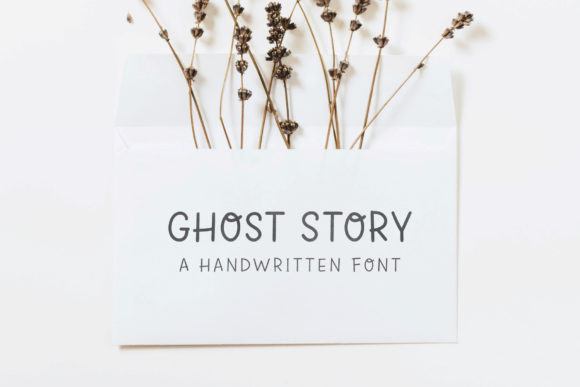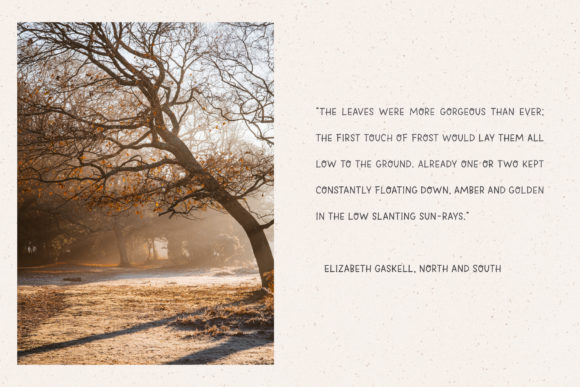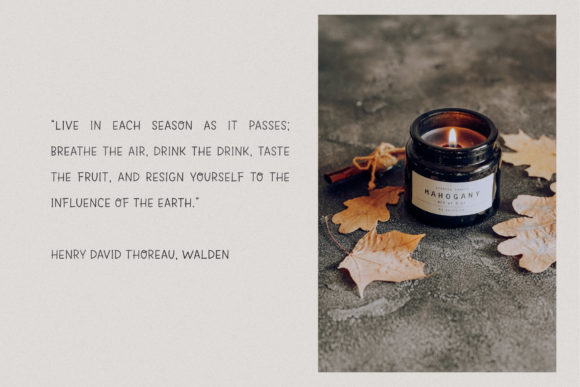
About Ghost Story Font
Ghost Story is a minimalist and elegant handwritten font that exudes a clean, refined, and understated vibe. Its thin and smooth letterforms give it a sense of sophistication and simplicity, making it a versatile choice for a wide range of design projects.
The font’s clean and uncluttered appearance allows it to seamlessly integrate into various design contexts. Whether you’re working on branding materials, editorial layouts, invitations, or any other creative project, Ghost Story’s understated elegance can elevate your design with a touch of modernity and refinement.
The thin and smooth strokes of Ghost Story contribute to its timeless and versatile quality. Its simplicity makes it well-suited for both formal and informal applications, allowing you to convey a sense of professionalism or approachability, depending on the context. The font’s versatility enables you to experiment with different sizes and styles, from delicate and subtle to bold and impactful, all while maintaining its inherent clean and smooth aesthetic.
Ghost Story’s minimalist charm doesn’t overpower the overall design but rather enhances it with a touch of subtlety. This makes it an excellent choice for pairing with other typefaces or design elements, allowing it to play a supporting role in your compositions. Its neutral and adaptable nature ensures that it complements a wide range of visual styles and themes, making it a reliable choice for various design projects.
The font’s clean and thin lines make it particularly suitable for projects that require a modern and contemporary feel. Its straightforward and unadorned style can contribute to a sense of clarity and simplicity, helping your message or content stand out without distractions. Whether you’re designing for digital platforms, print materials, or any other medium, Ghost Story’s clean and smooth vibe ensures legibility and a polished appearance.
Overall, Ghost Story’s simple handwritten style, combined with its clean, thin, and smooth characteristics, make it a versatile and adaptable font choice. Its understated elegance can enhance the visual appeal and readability of your designs while maintaining a contemporary and refined look. Whether you’re aiming for a sleek and minimalist aesthetic or a sophisticated and modern feel, Ghost Story is a font that can effortlessly elevate your creative projects.